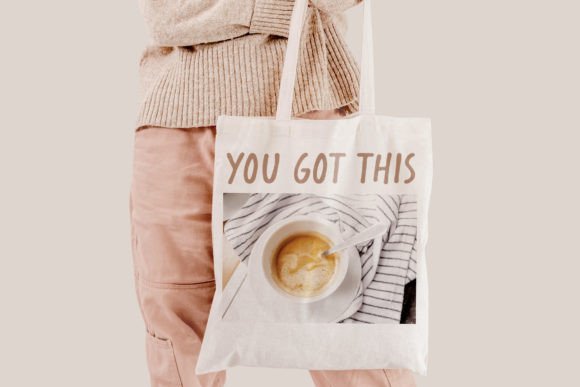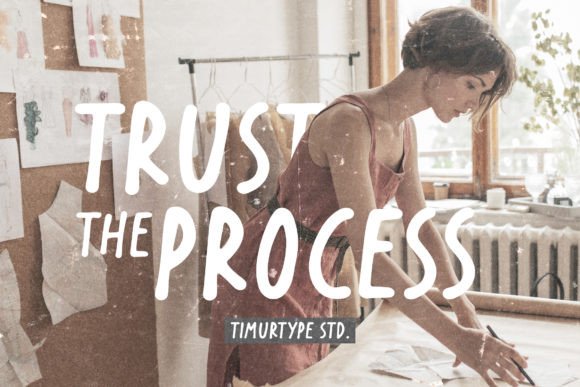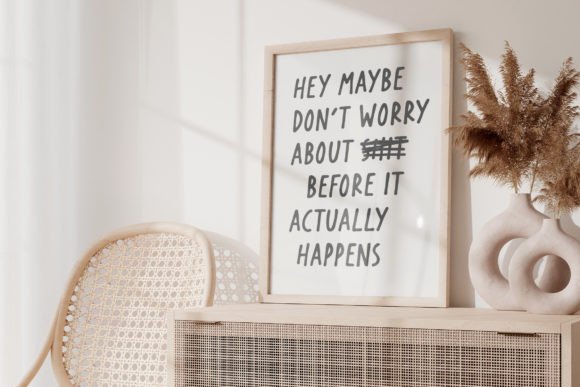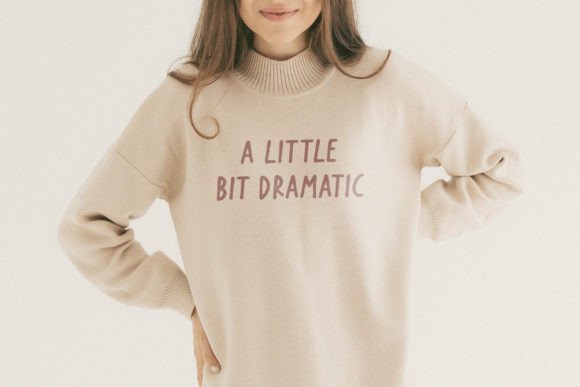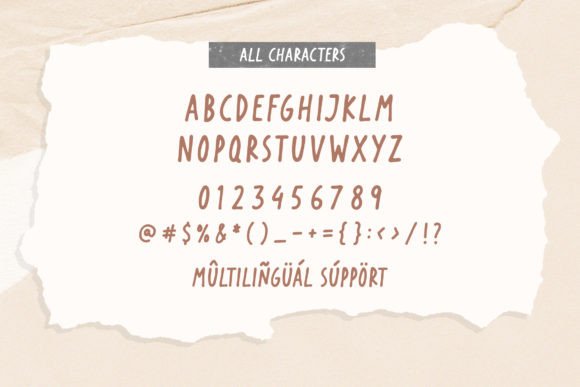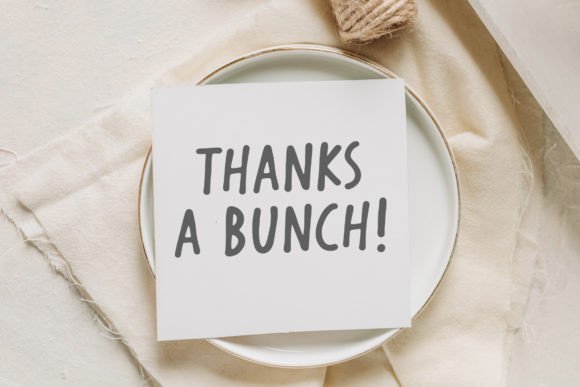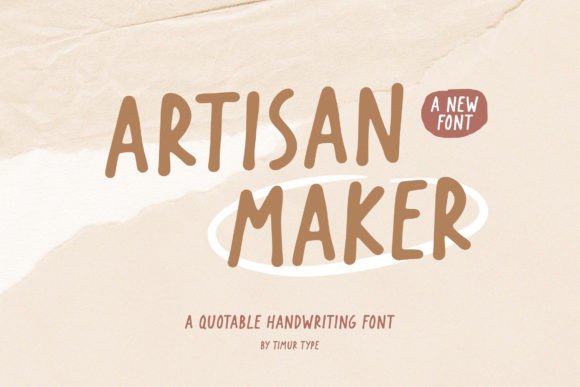
Introducing the Artisan Maker Font: Elevate Your Designs with a Touch of Handcrafted Charm
In the world of design, the right font can make all the difference. It can add a touch of personality, convey a sense of style, and even evoke emotions. For designers and crafters looking to infuse their work with a sense of handcrafted charm, the Artisan Maker Font is an excellent choice. In this article, we’ll explore the features and benefits of this versatile font, and how it can be used to elevate your designs.
What is the Artisan Maker Font?
The Artisan Maker Font is a carefully crafted typeface designed to bring a touch of artisanal charm to your designs. With its unique blend of classic and modern elements, this font is perfect for a wide range of applications, from product packaging and branding projects to magazines, social media, weddings, and more.
Key Features of the Artisan Maker Font
- Unique Character Set: The Artisan Maker Font features a distinctive character set that is both elegant and rustic, making it perfect for designs that require a touch of handcrafted charm.
- Versatile: This font is incredibly versatile and can be used for a wide range of applications, from digital designs to print materials.
- Easily Readable: Despite its unique character, the Artisan Maker Font is easily readable, making it perfect for body text and headlines.
The Artisan Maker Font is perfect for:
- Product Packaging: Add a touch of artisanal charm to your product packaging with this unique font.
- Branding Projects: Use the Artisan Maker Font to create a cohesive brand identity that stands out from the crowd.
- Magazines and Editorial Design: Add a touch of elegance and sophistication to your magazine and editorial designs.
- Social Media: Use the Artisan Maker Font to create eye-catching social media graphics that showcase your brand’s personality.
- Weddings and Events: Create beautiful wedding invitations, programs, and other event materials with this stunning font.
Why Choose the Artisan Maker Font?
With so many fonts to choose from, why should you choose the Artisan Maker Font? Here are just a few reasons:
- Unique and Distinctive: This font is unlike any other, offering a unique and distinctive look that will set your designs apart.
- High-Quality Design: The Artisan Maker Font is designed to the highest standards, ensuring that it looks great in any application.
- Easily Customizable: This font is easily customizable, allowing you to adjust the size, color, and style to suit your design needs.
Tips for Using the Artisan Maker Font
Here are a few tips for getting the most out of the Artisan Maker Font:
- Use it as a Headline Font: The Artisan Maker Font is perfect for headlines and titles, where its unique character can really shine.
- Pair it with Other Fonts: Experiment with pairing the Artisan Maker Font with other fonts to create a unique and interesting look.
- Adjust the Size and Color: Don’t be afraid to adjust the size and color of the font to suit your design needs.
IArtisan Maker is perfect for product packaging, branding projects, magazines, social media, weddings and so much more!